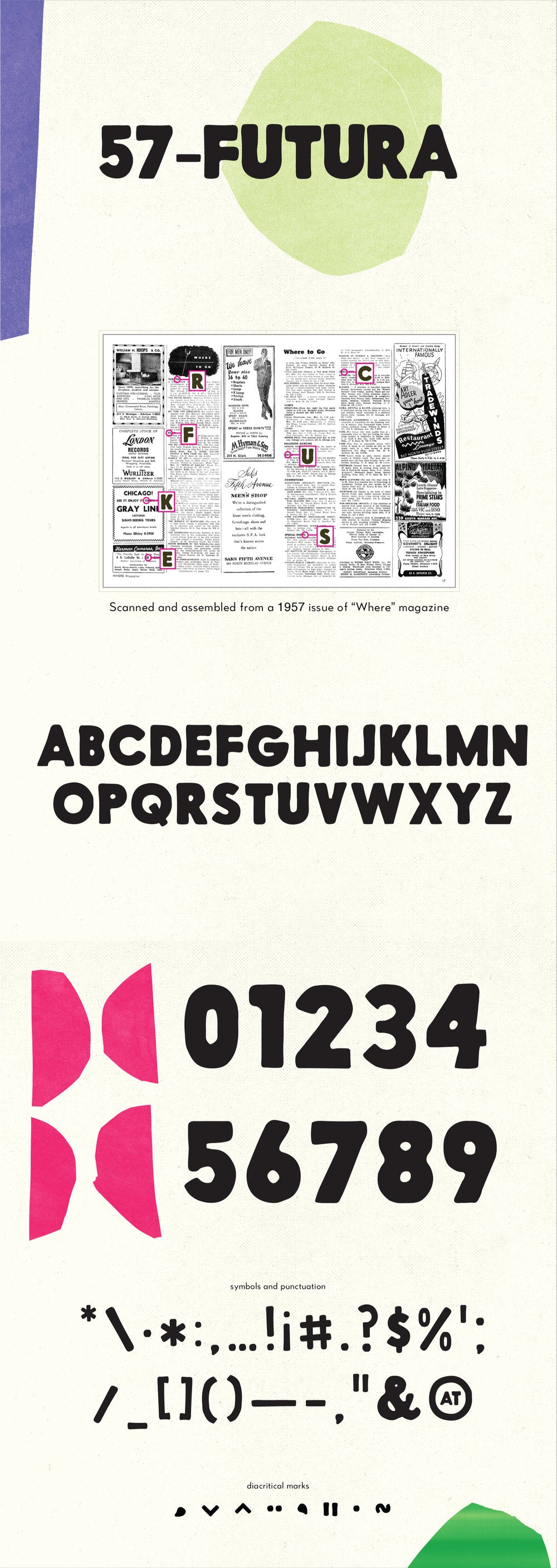
Free 57-FUTURA - VINTAGE FONT
Download and enjoy this free 57-futura - vintage font. Cool typeface to showcase your designs in a modern way. Pixel Surplus has created this amazing and beautiful font. Easily amaze your audience with this beautiful font and make your graphic designs pop up from the crowd.